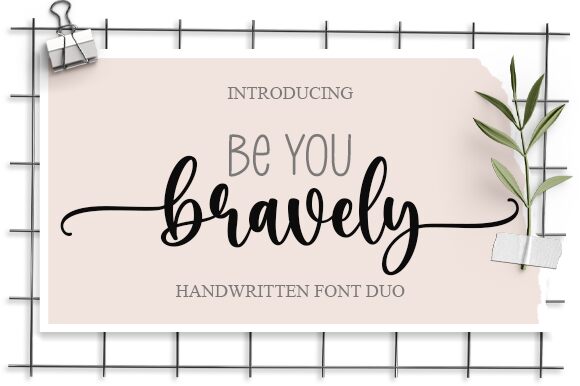
Be You is a cute, handwritten font designed by Aldi Raya Pradipta. Its light weight and narrow width make it perfect for crafting eye-catching logos, titles, and headlines. It's also perfect for creating unique invitations, social media posts, and stationery designs.
Be You